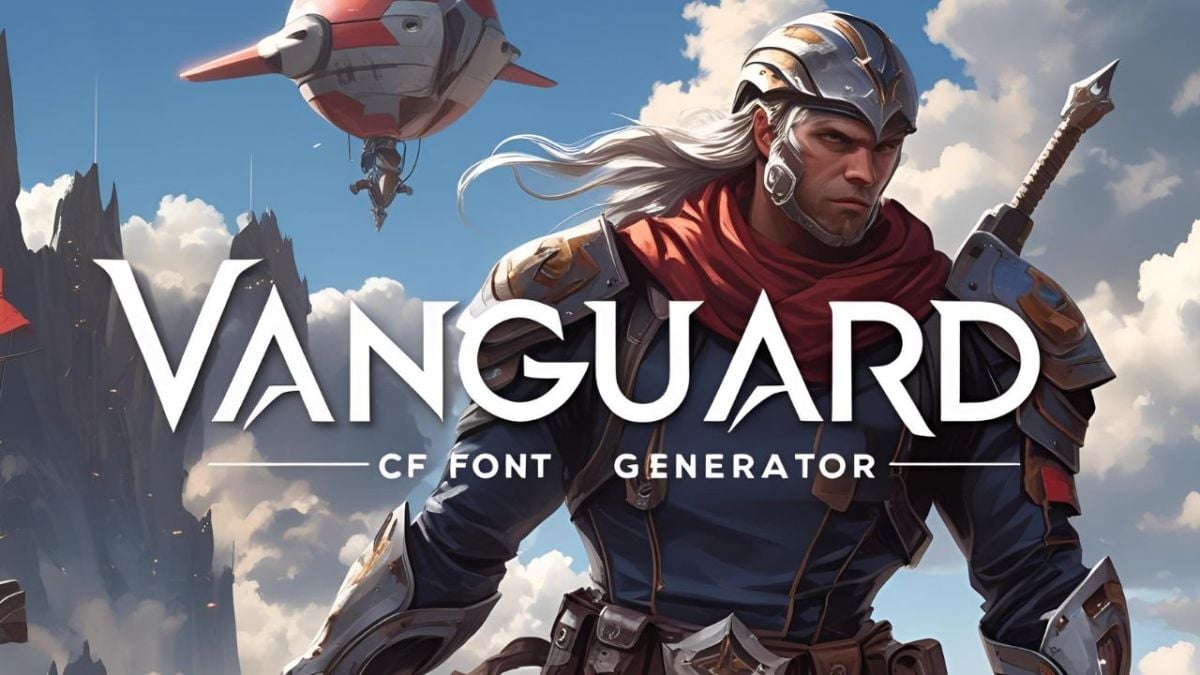
Vanguard CF Font Generator
Create professional corporate and tech-style text with cutting-edge Vanguard CF fonts! Perfect for business presentations, modern designs, and innovative projects!